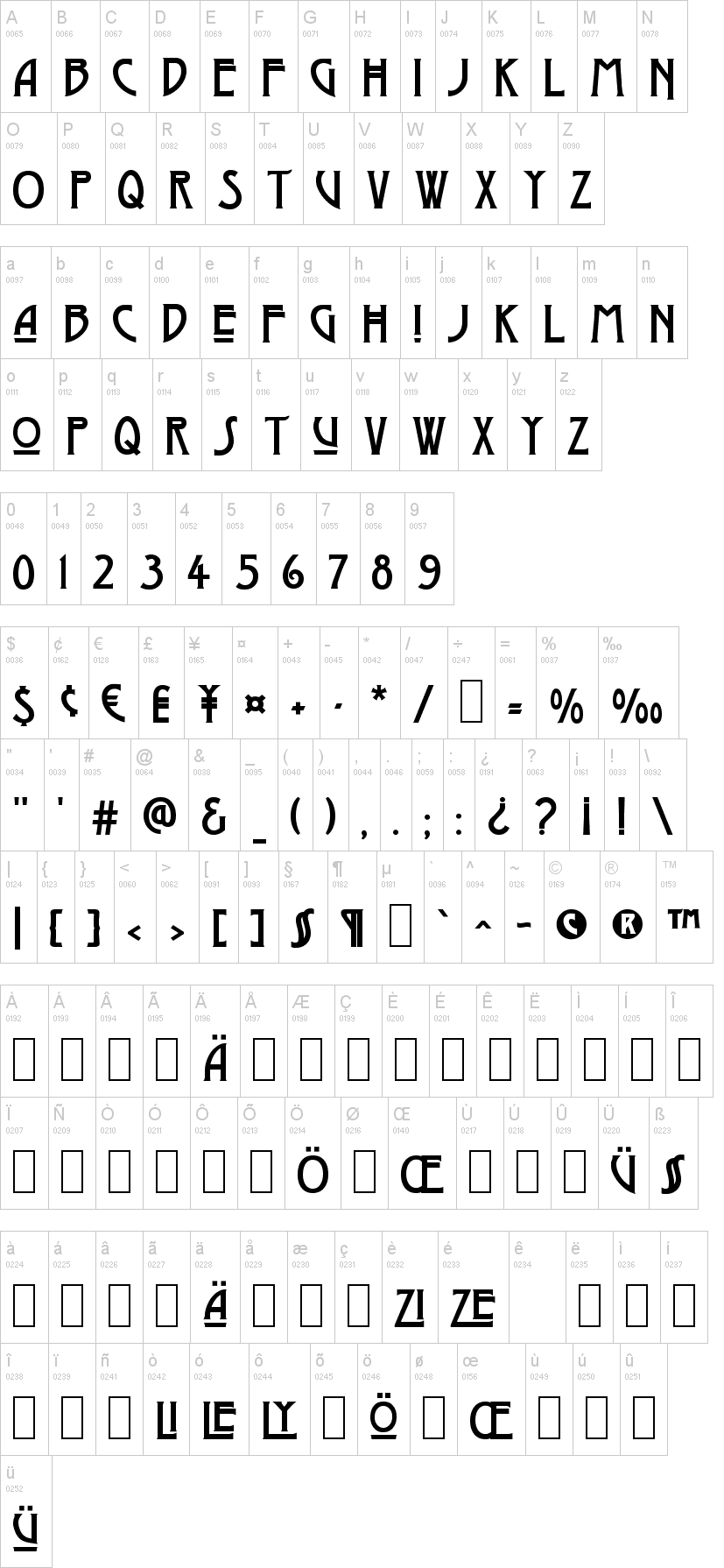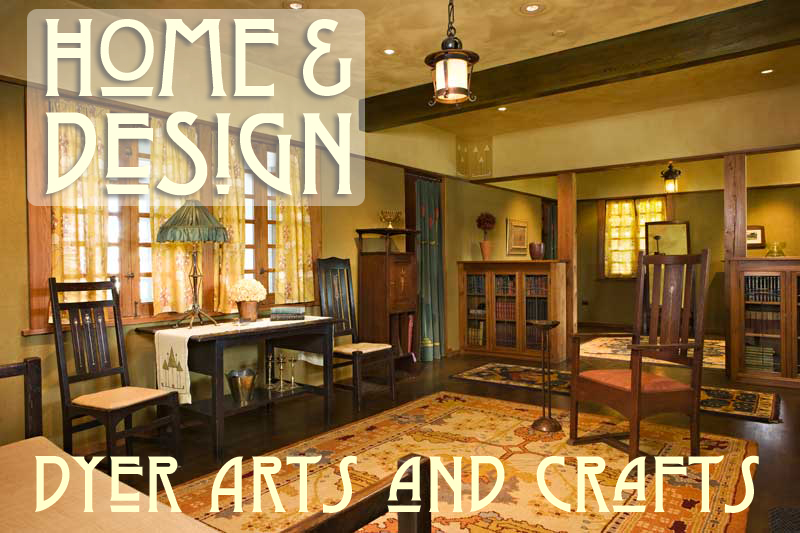
Note of the authorThis beautiful font comes with German umlauts and five attractive ligatures. Note the difference between capitals and lower case letters. 'Dyer Arts and Crafts' is Public Domain and free for all kinds of usage.